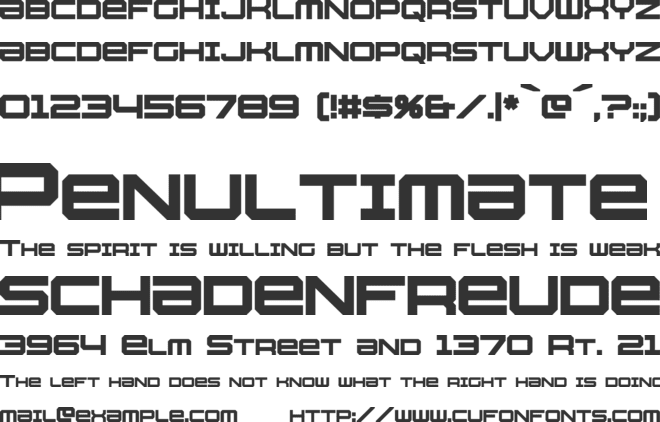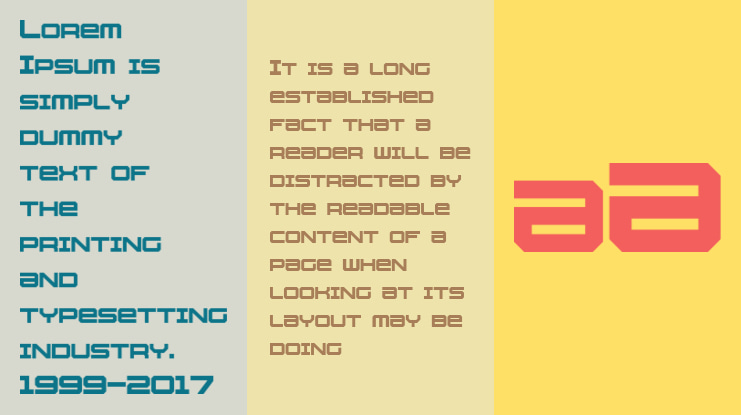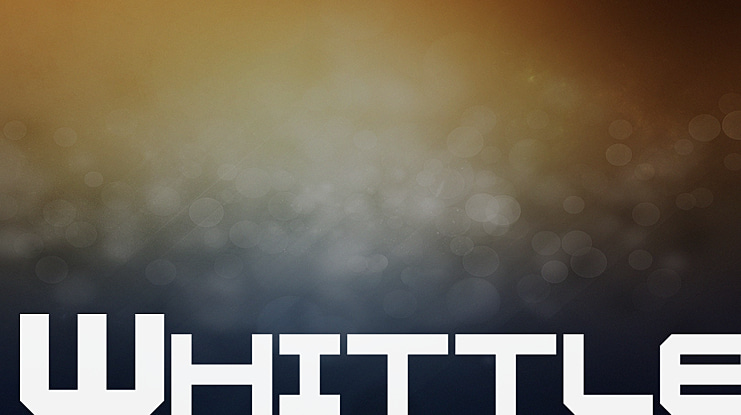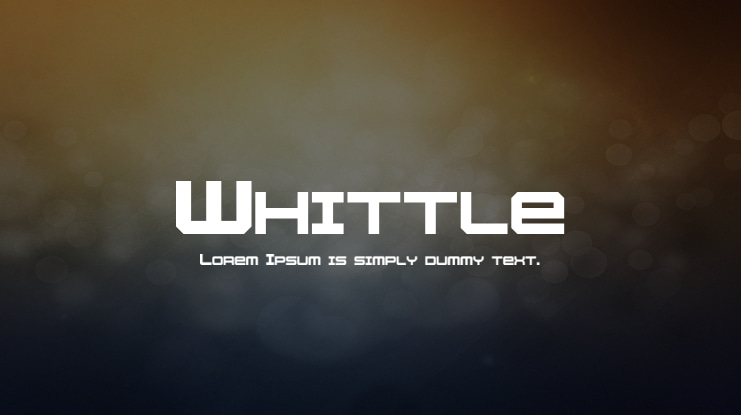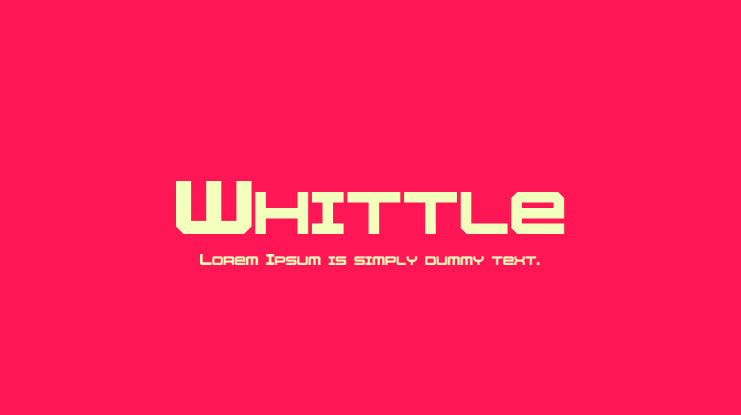
Whittle Font Family
Neale Davidson
This simple, sharp, heavy font is based on the lettering used on pundit Bill Whittle's "Afterburner" segments. Includes full alphabet, extended punctuation, Euro. Includes italic and condensed versions.